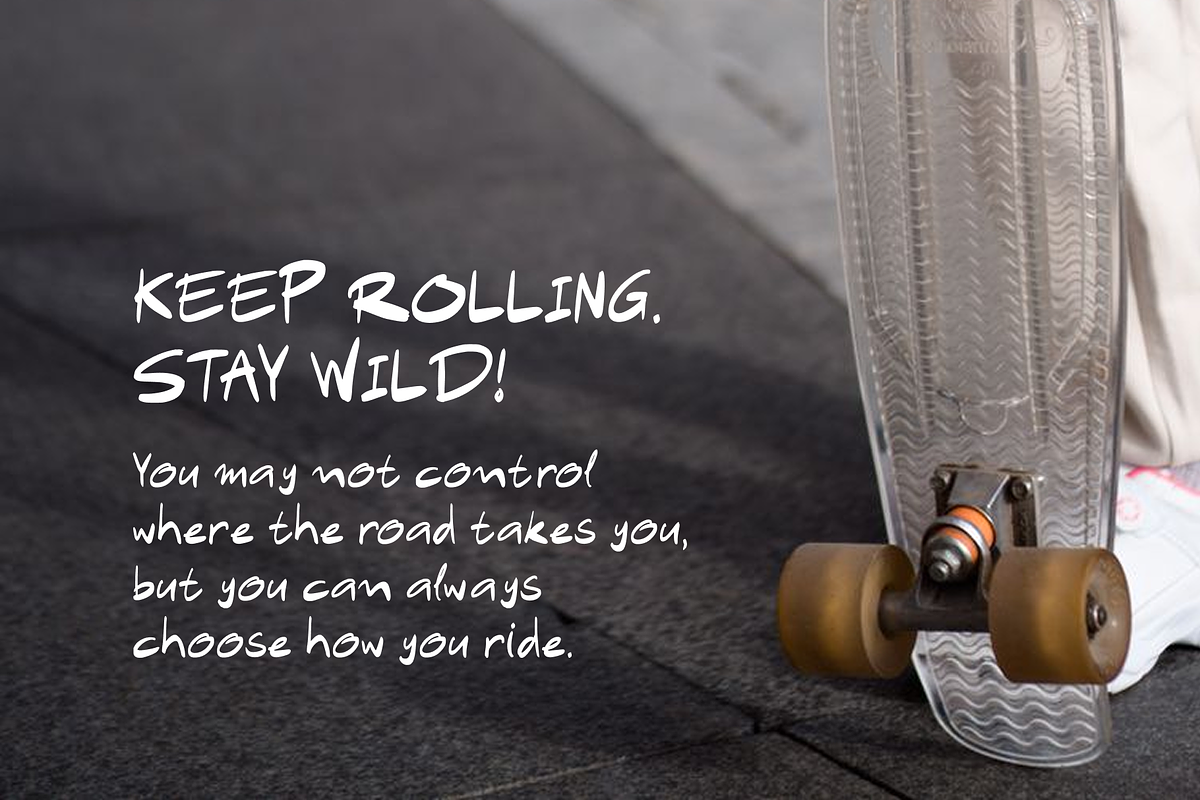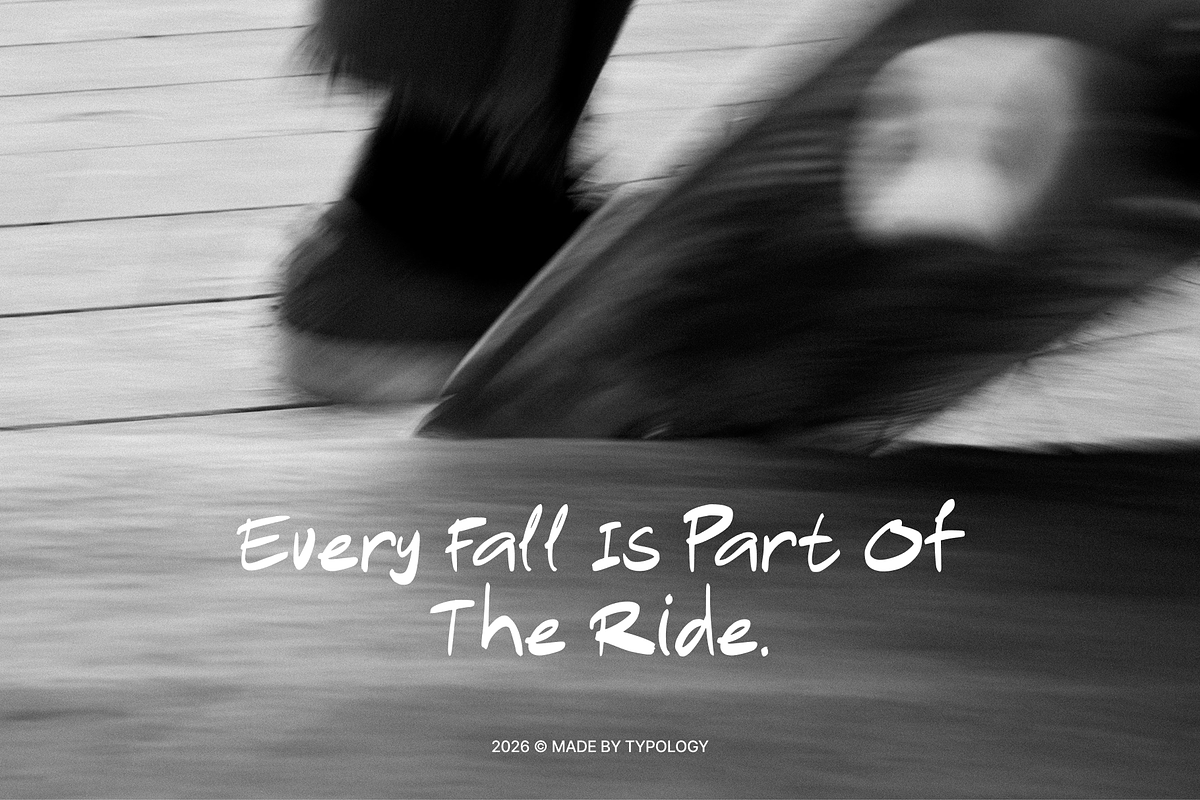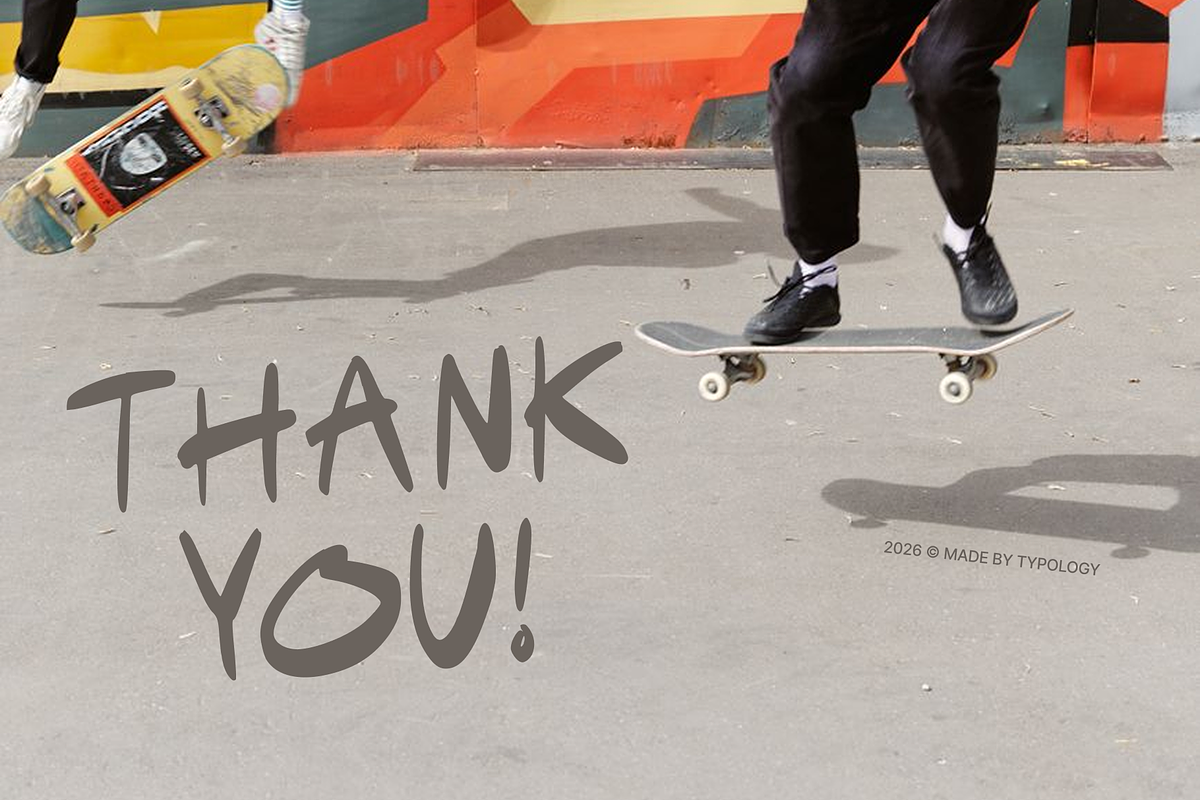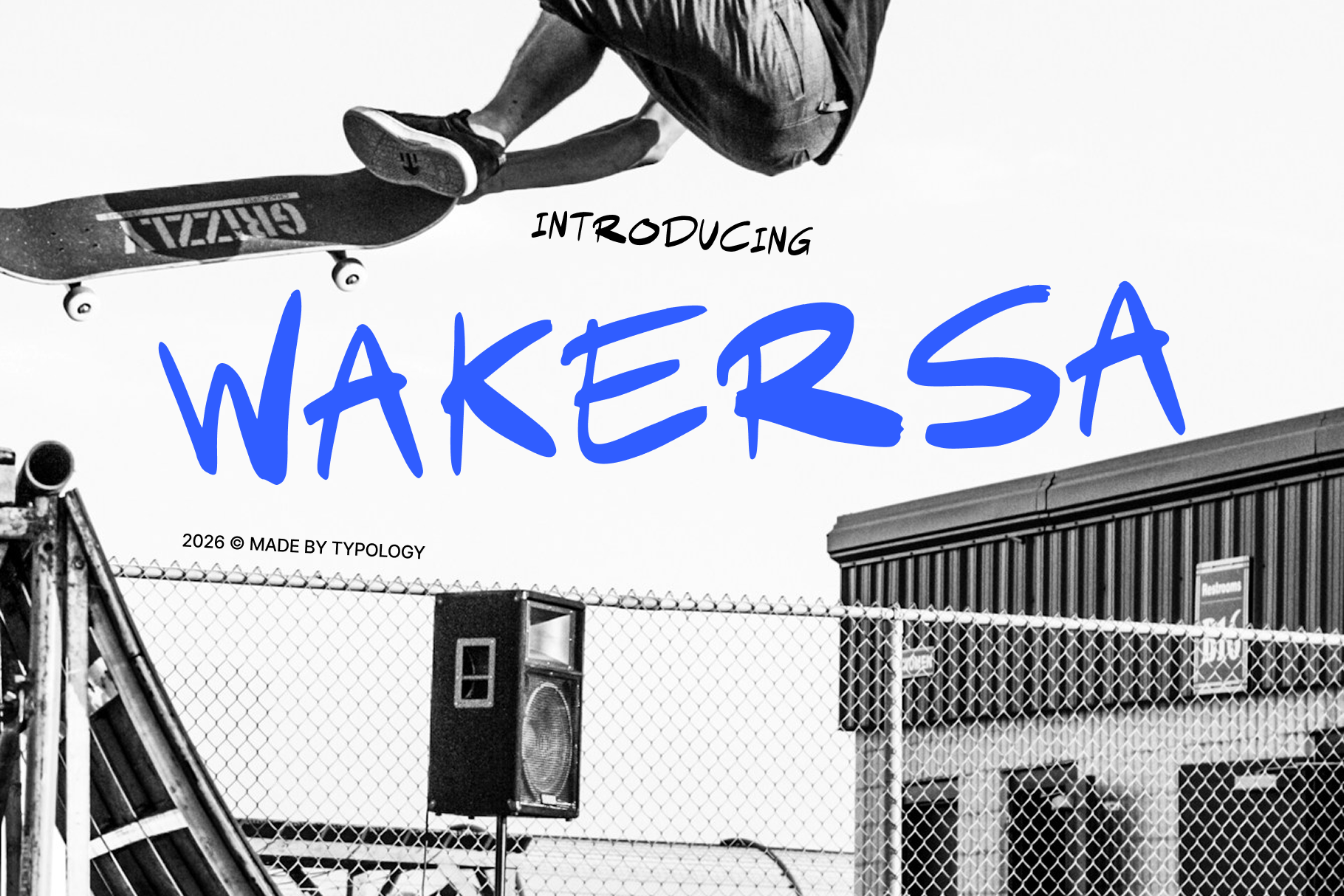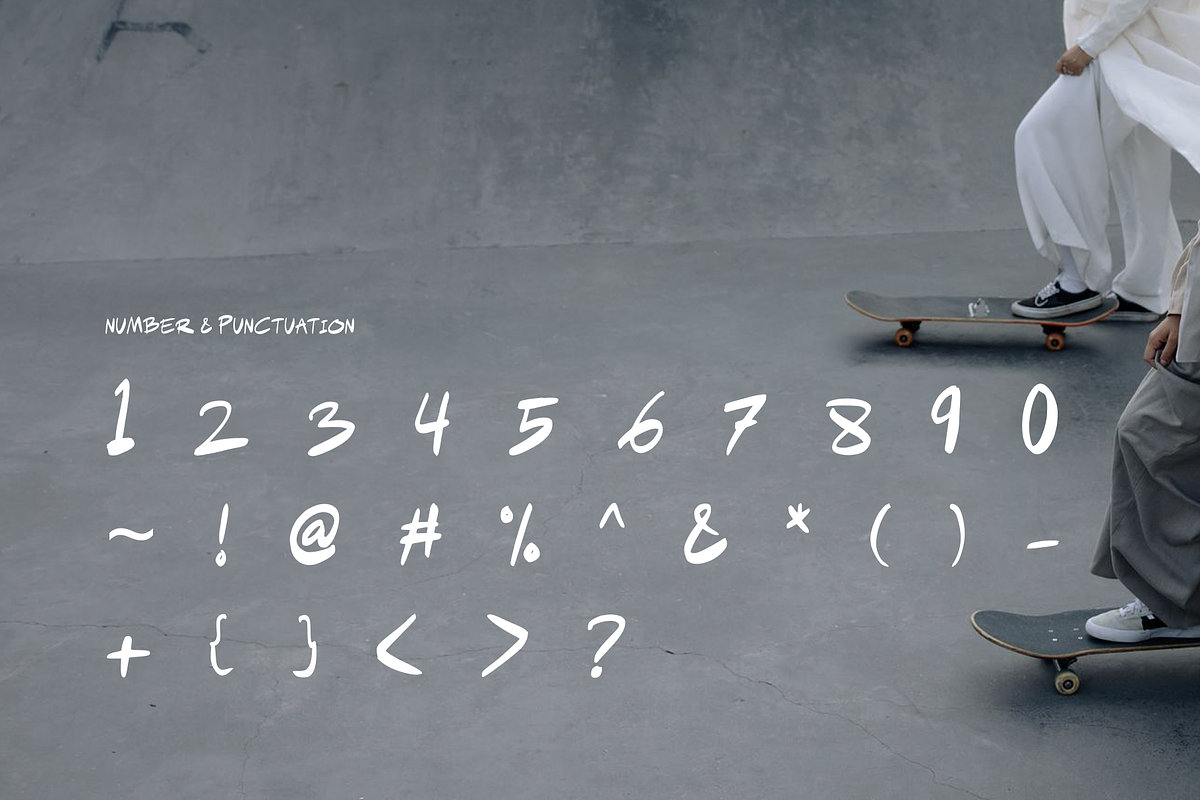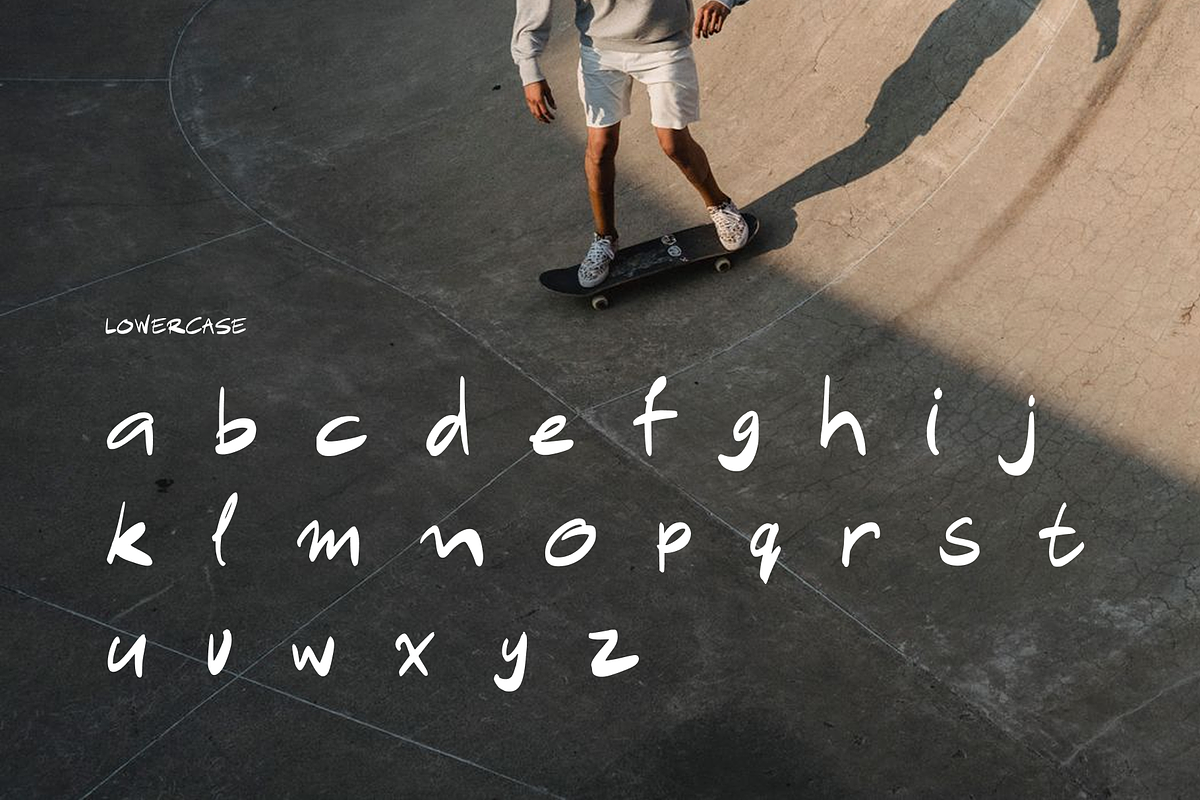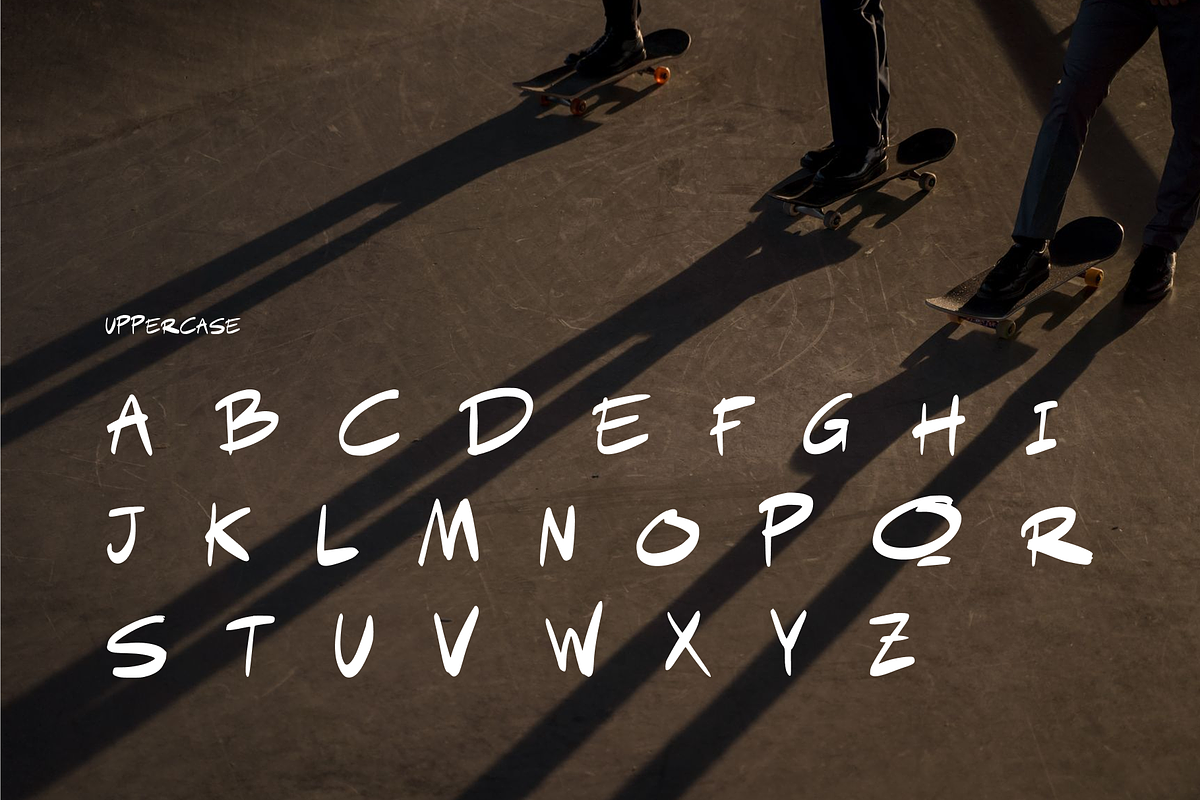
Wakersa — Street Handwritten Font
Wakersa is a street handwritten font with an expressive, raw, and spontaneous style. Its aggressive brush strokes, uneven shapes, and handcrafted embellishments produce a real street-inspired esthetic that is both lively and imperfect in the best way. Wakersa is particularly suitable for posters, shirts, album artwork, skate graphics, branding, packaging, social media projects, and editorial layouts that require a strong handmade flair.
Wakersa is inspired by street culture, skating, DIY graphics, and underground zine aesthetics**, giving modern font a rebellious yet approachable feel. This handwritten display font is perfect for designers searching for a rough brush font, urban font, marker-style font, or expressive handwritten typeface that will instantly add character and visual impact to their projects.